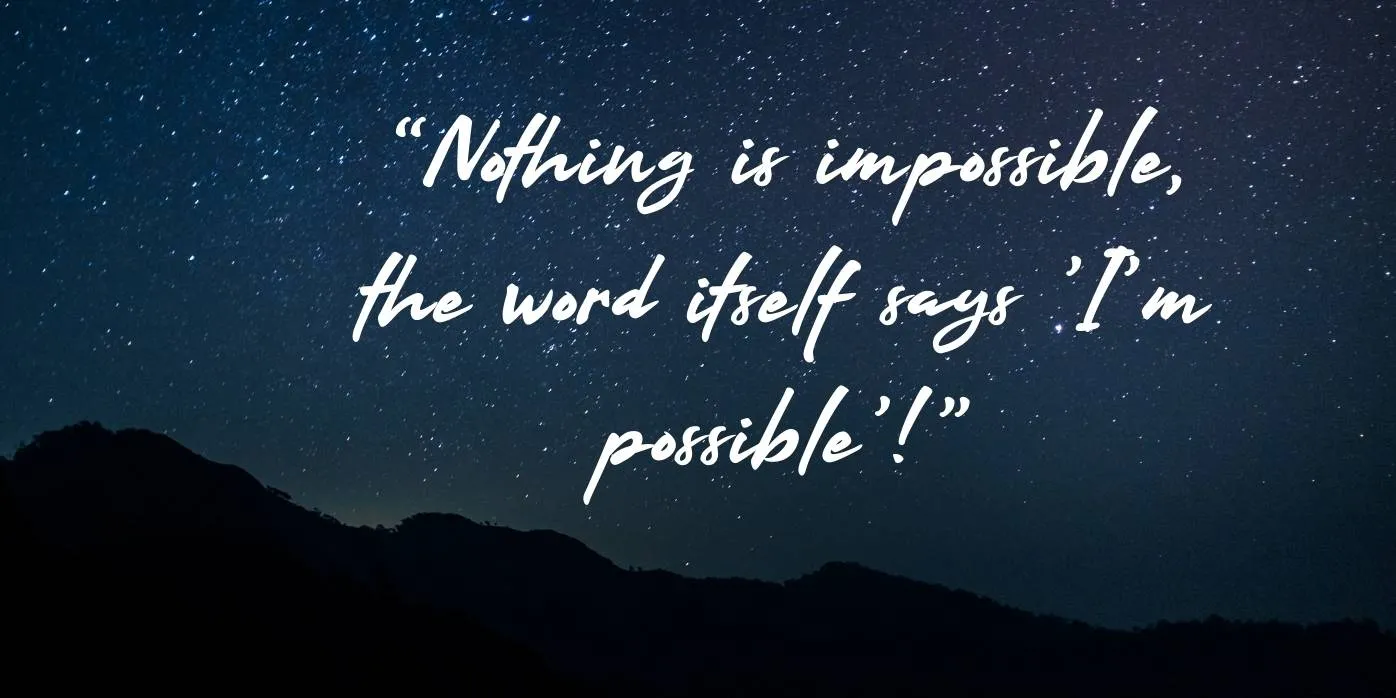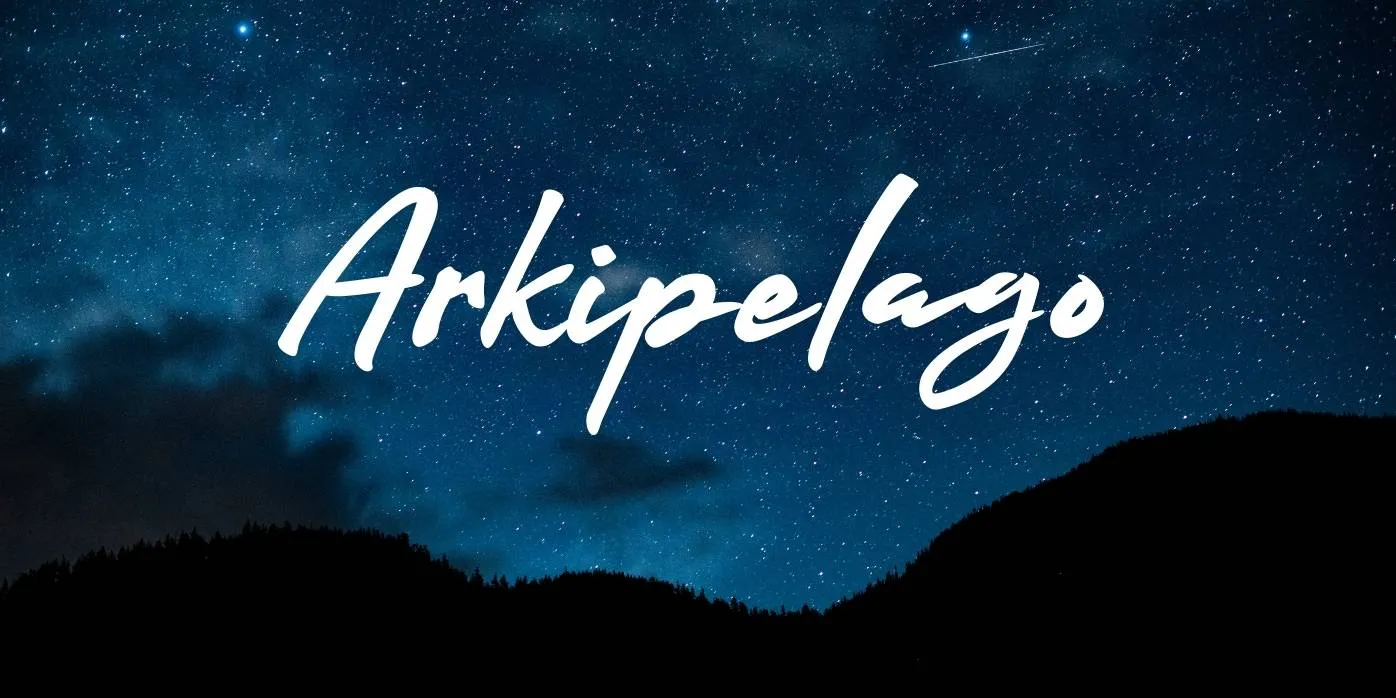
Arkipelago Font
Nasir Udin Studio manufactured Arkipelago Font. The texture is a brush type. It has 366 characters that include capital letters, lowercase letters, numbers, special letters, and punctuation. The Characters of this texture are stylish and readable.
The protionally spaced exture of this font decreases its readability but they are thick enough to be read. Its circle of usage is not wide because it has thin and zig-zag characters. This property decreases its readability and is not able to grab the attention of the reader. The rouged brush font makes a well combination with this font.
Both are versatile in order to grab the reader’s attention. The family contains only one style which is regular.